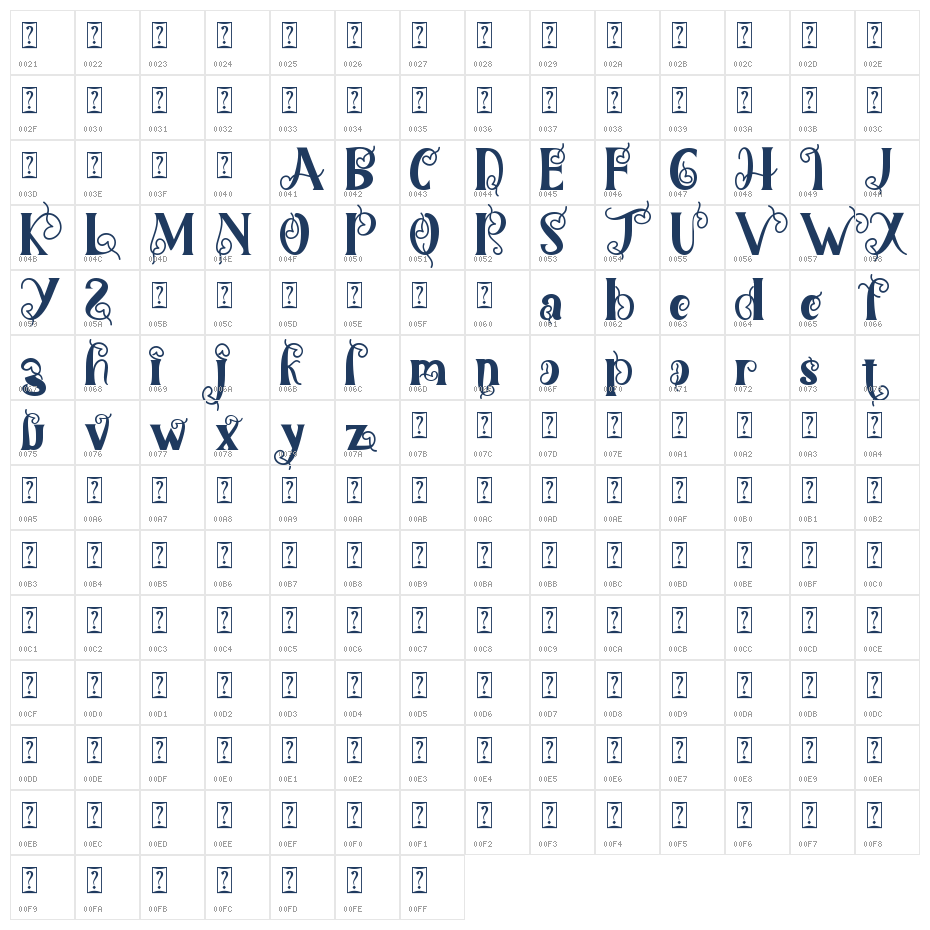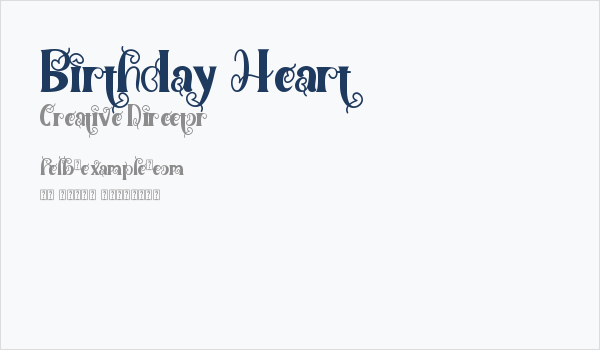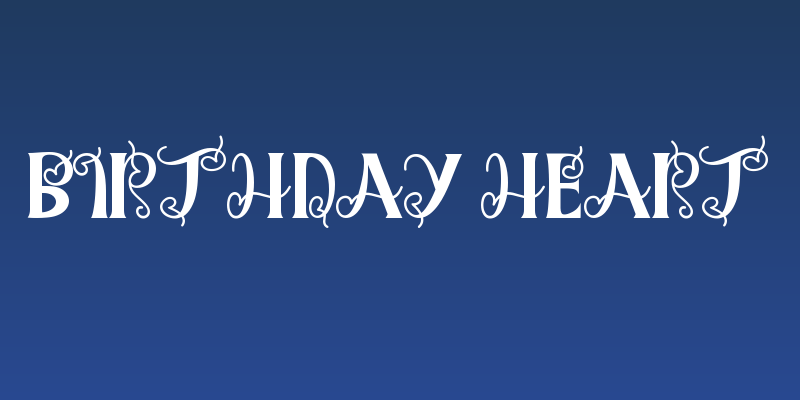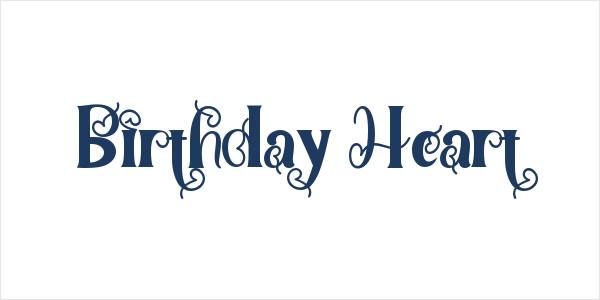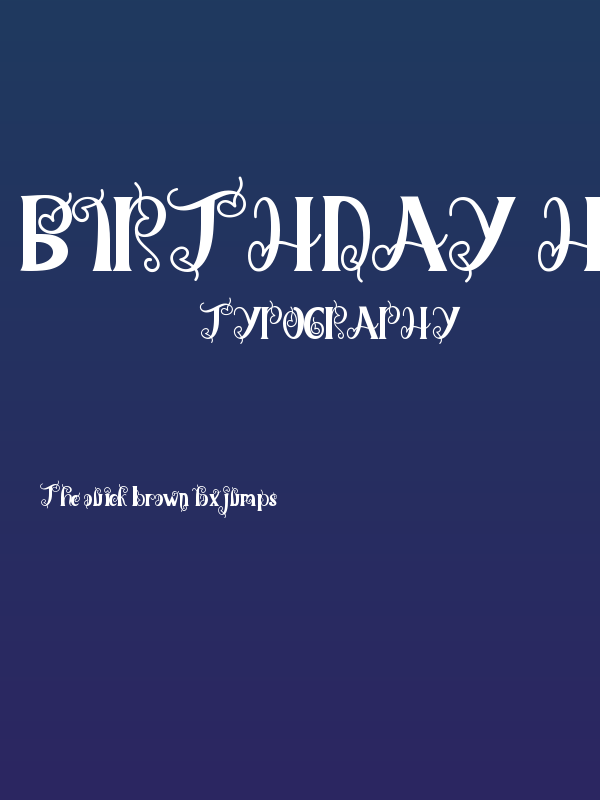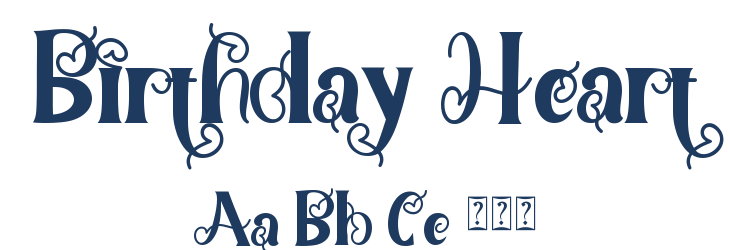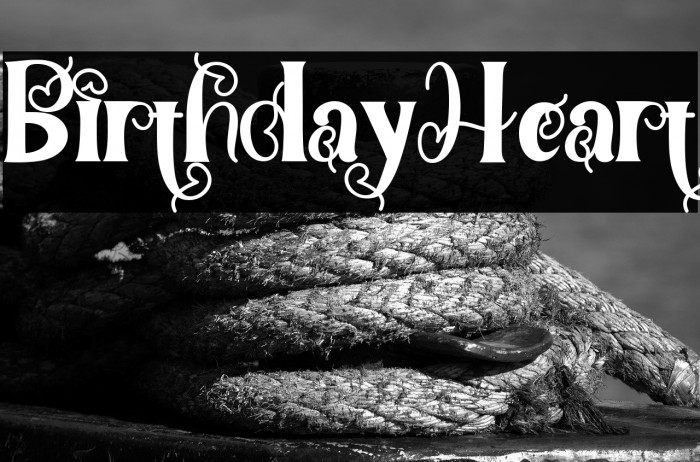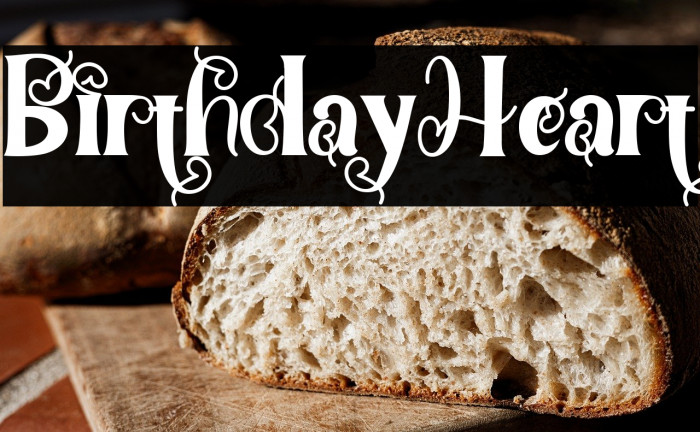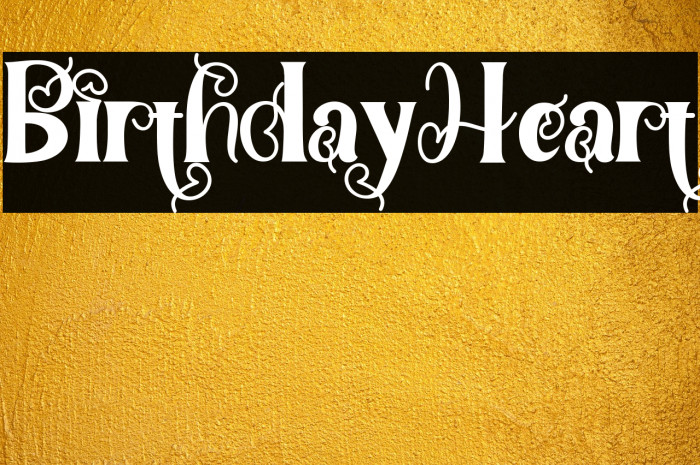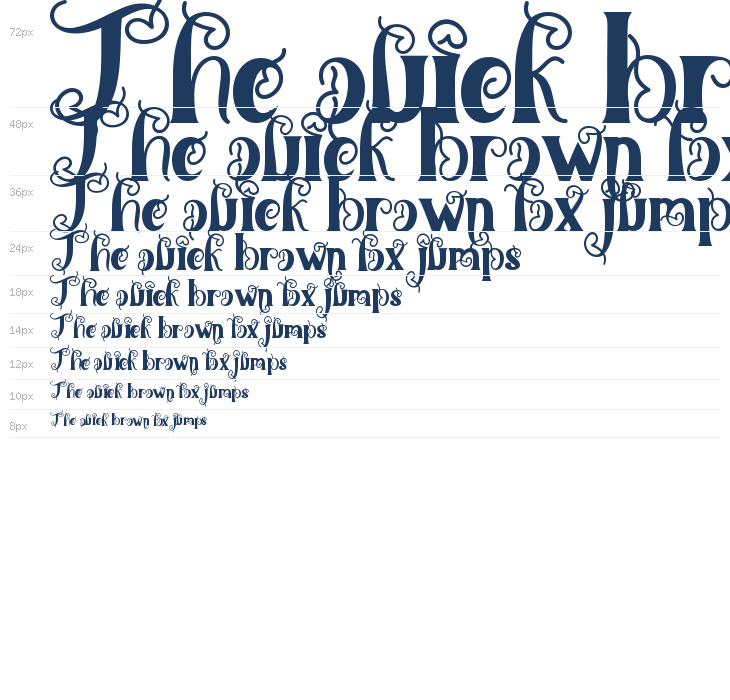
Birthday Heart Font
Birthday Heart Description
A decorative, ornate serif font with intricate, swirling embellishments on each character, giving it a vintage and elegant appearance.
Birthday Heart
| Overall Style | Vintage, Decorative |
| Use Case | Headlines, Titles, Decorative Text |